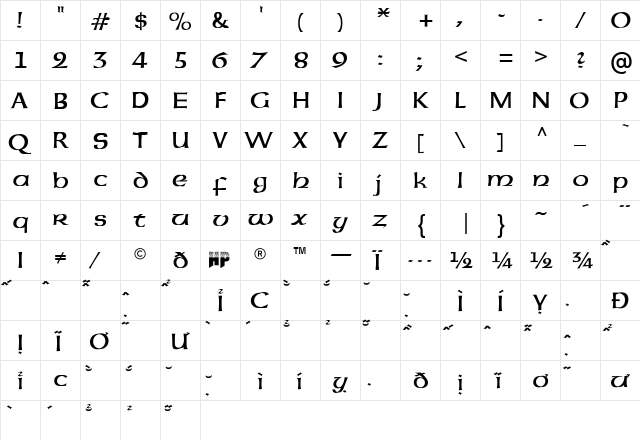
HP-Cam Van 02 Regular Font Preview
HP-Cam Van 02 Regular
Design Context for HP-Cam Van 02 Typeface
HP-Cam Van 02 takes a measured approach to typography — its balanced proportions and neutral character make it a reliable workhorse for both digital and print work.